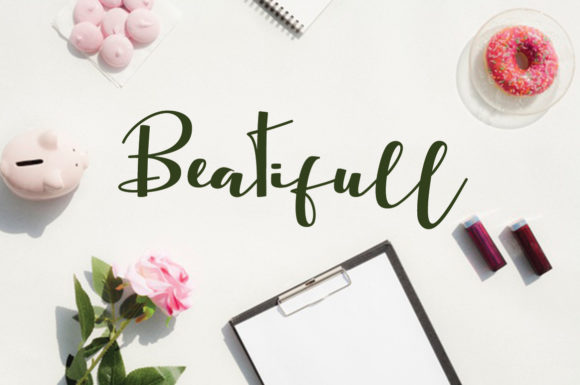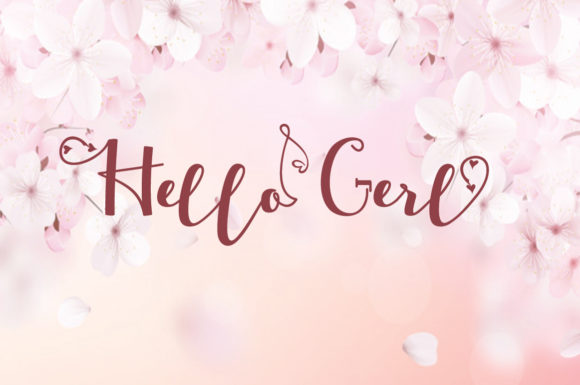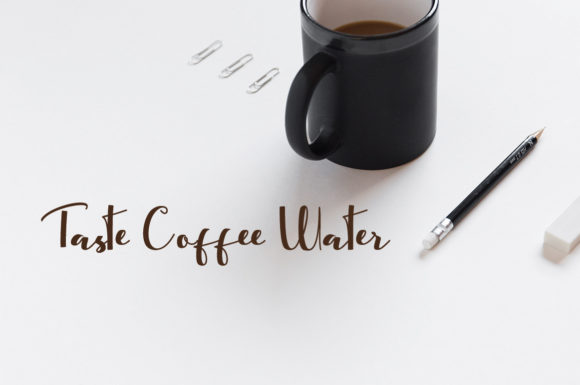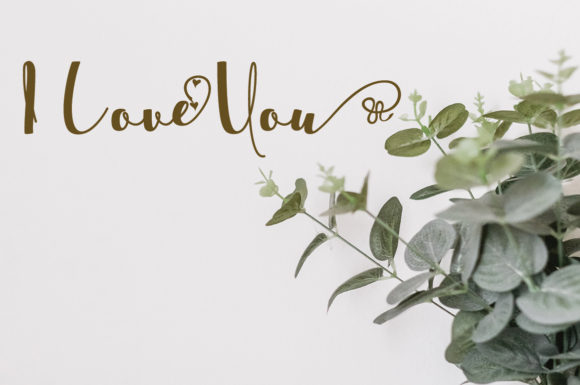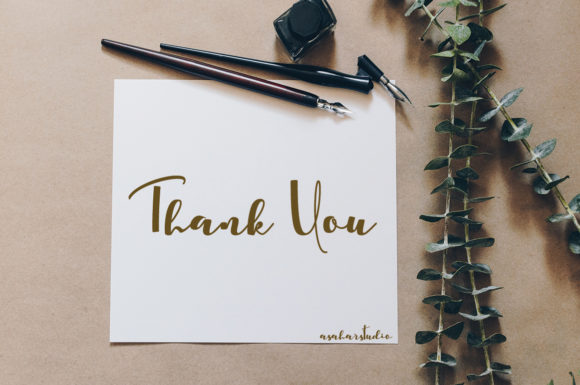
Renytha Font
About Renytha Font
Renytha feels equally charming and elegant. It features a varying baseline, smooth lines, gorgeous glyphs and stunning alternates. This font is PUA encoded which means you can access all of the amazing glyphs and swashes with ease! It will elevate a wide range of design projects to the highest level, be it branding, headings, wedding designs, invitations, signatures, logos, labels, and much more!